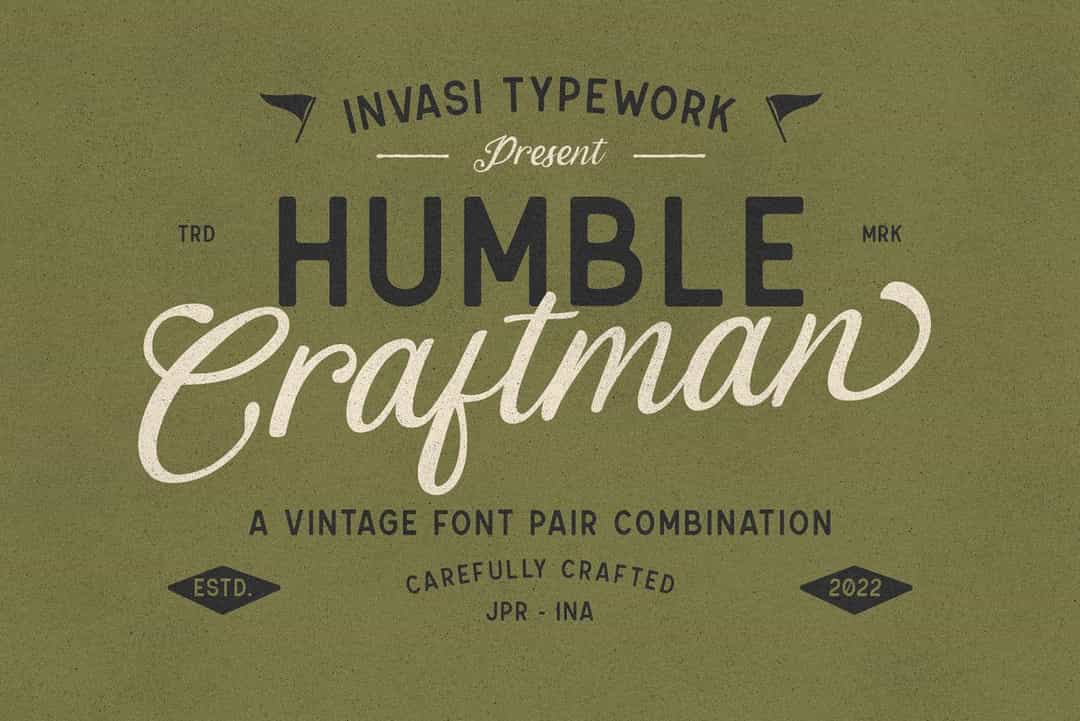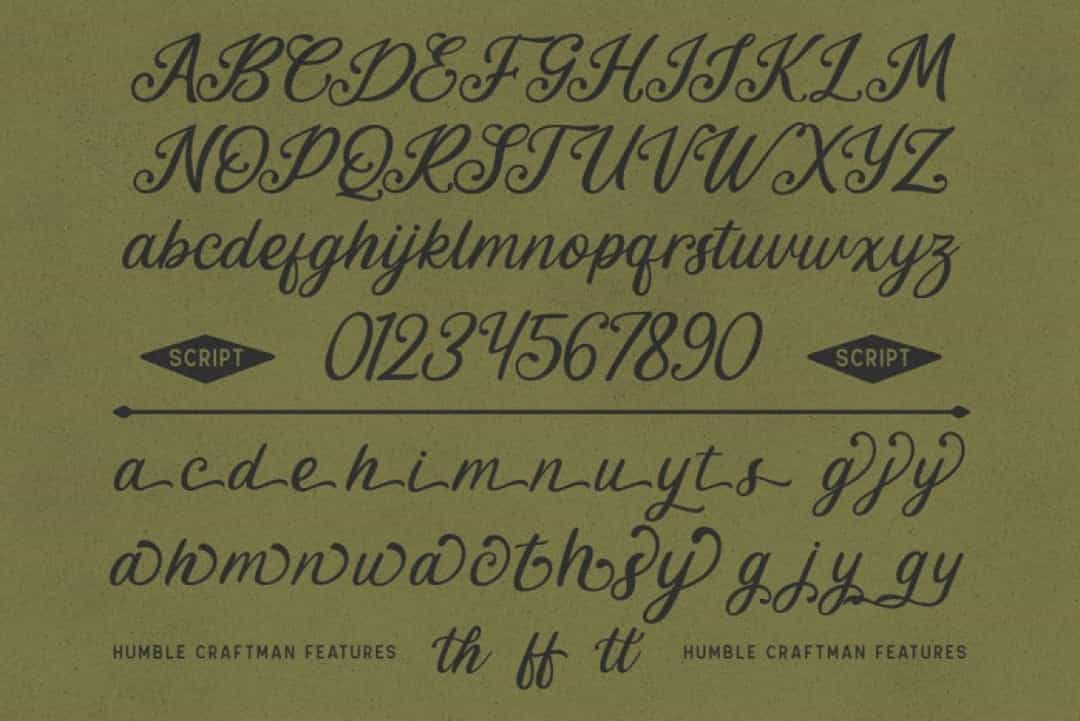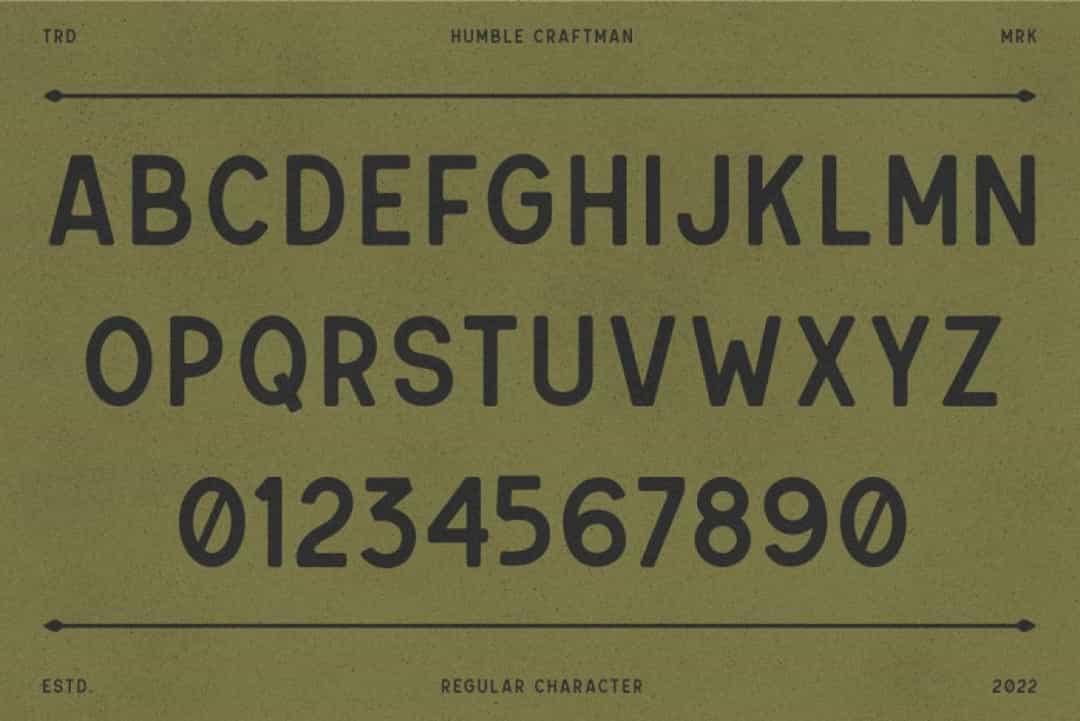
Humble Craftman is an extremely adaptable font, seamlessly fusing sans and script fonts together for maximum versatility. Each letter boasts its own swashy appearance making this script font standout even further in the market. Additionally, this traditional yet modern retro aesthetic fuses historic feel into modern retro styling for added visual interest.